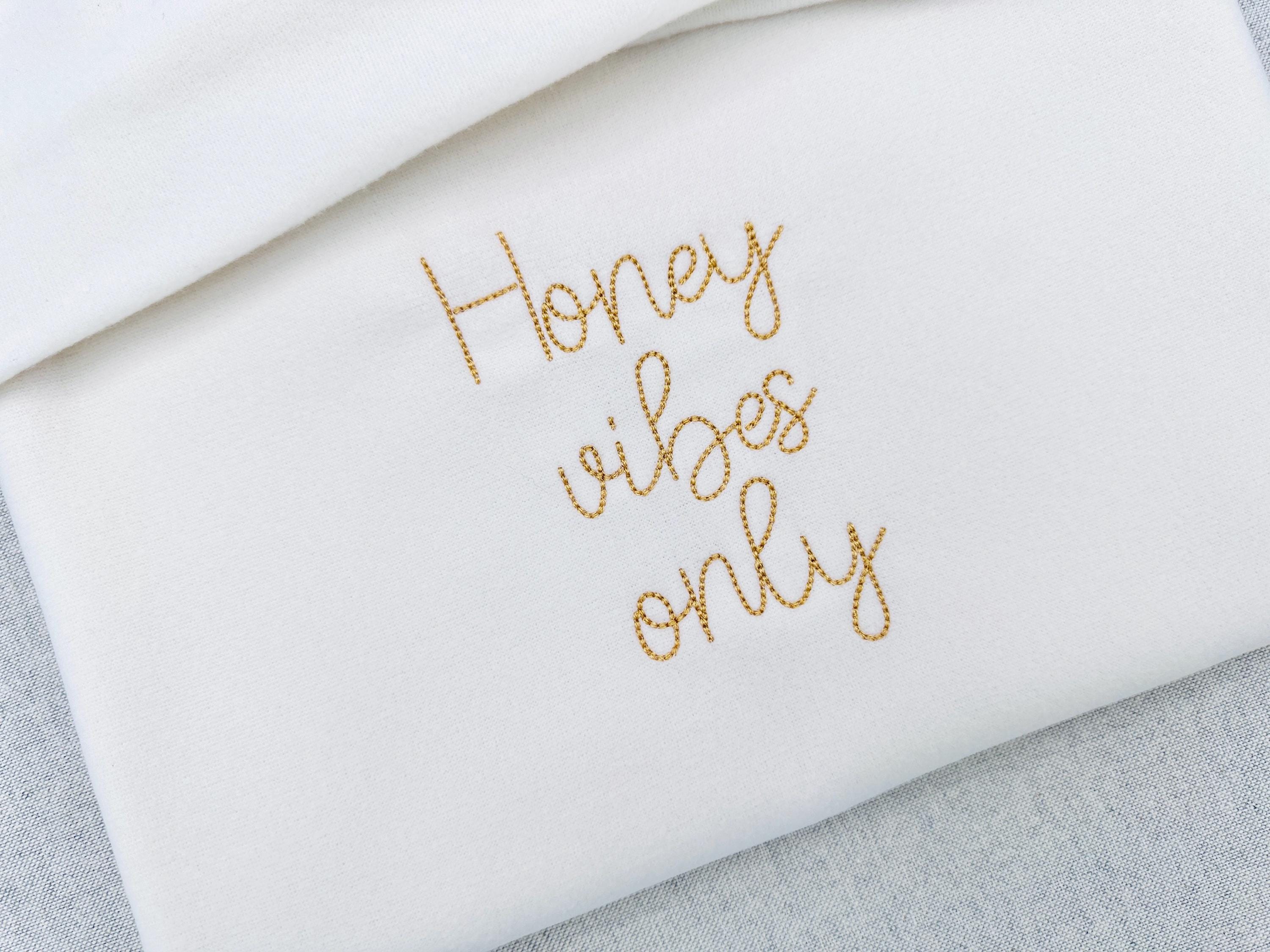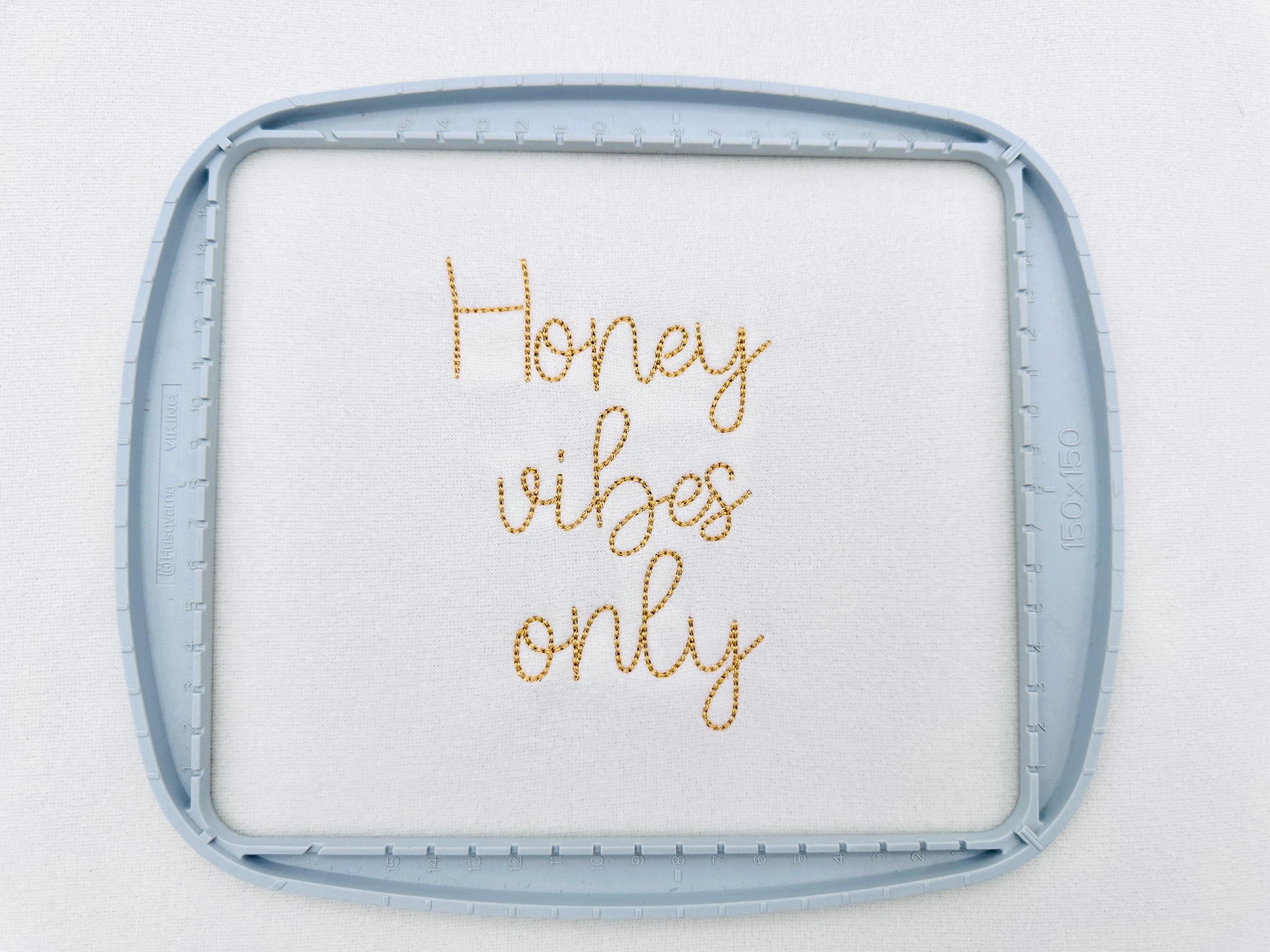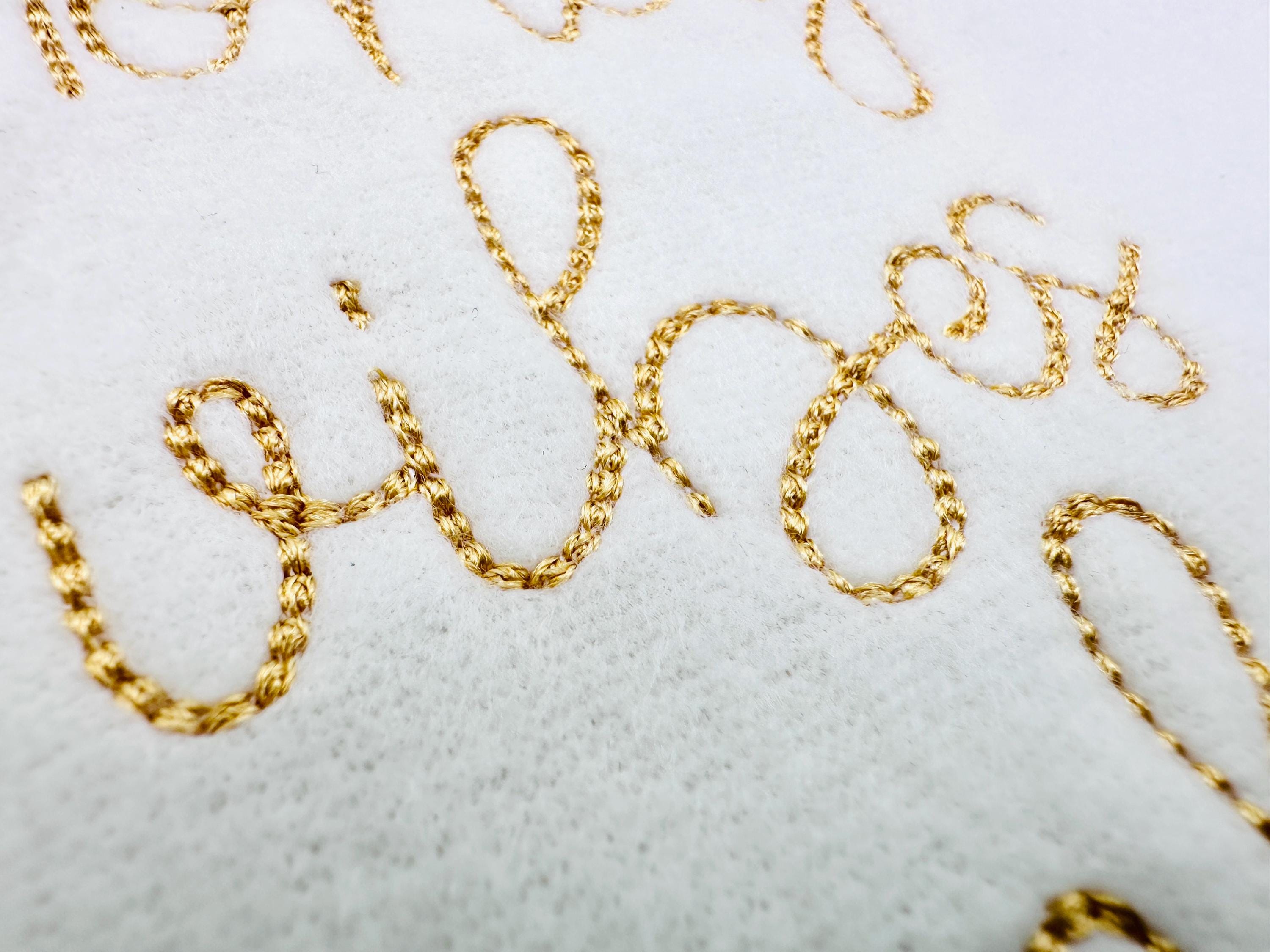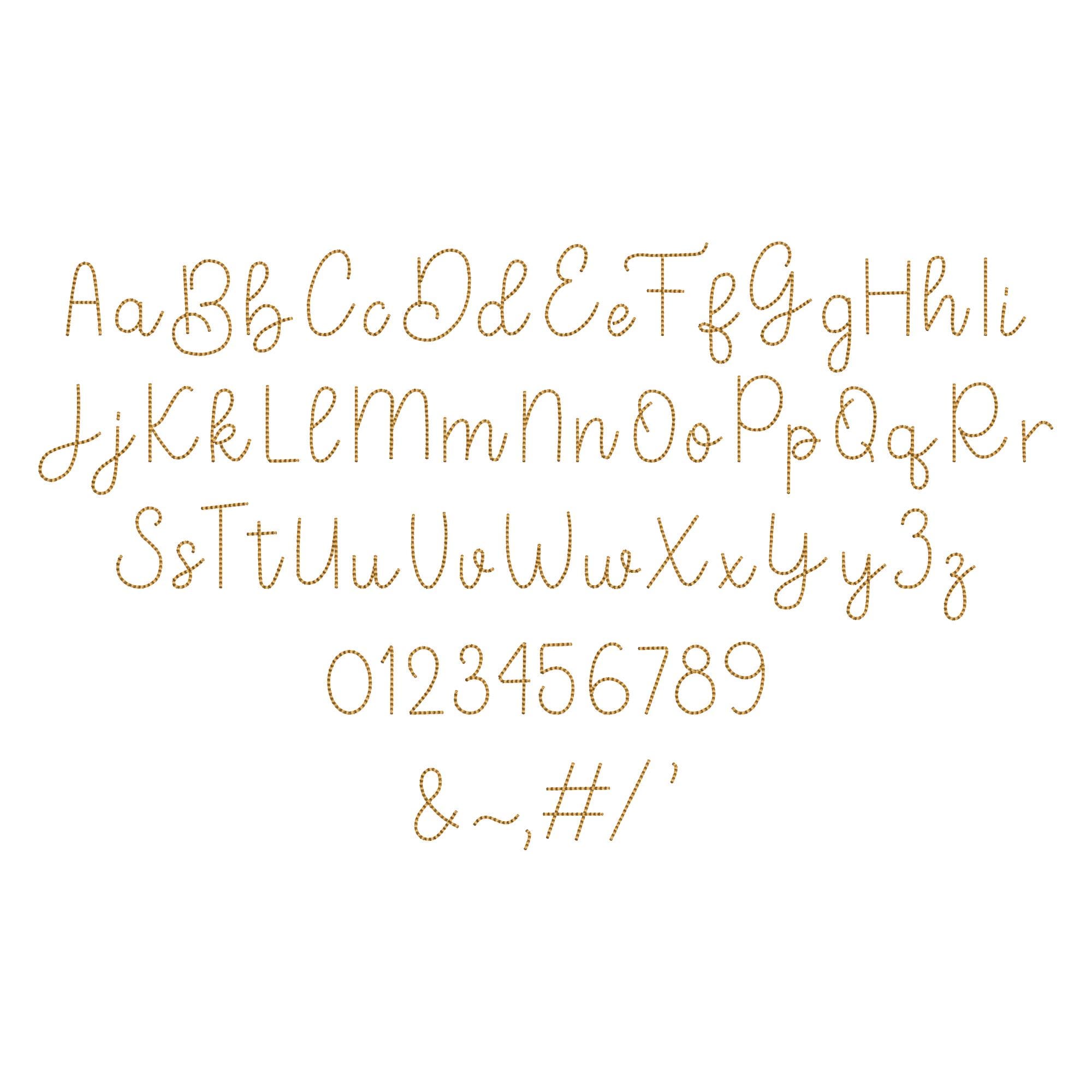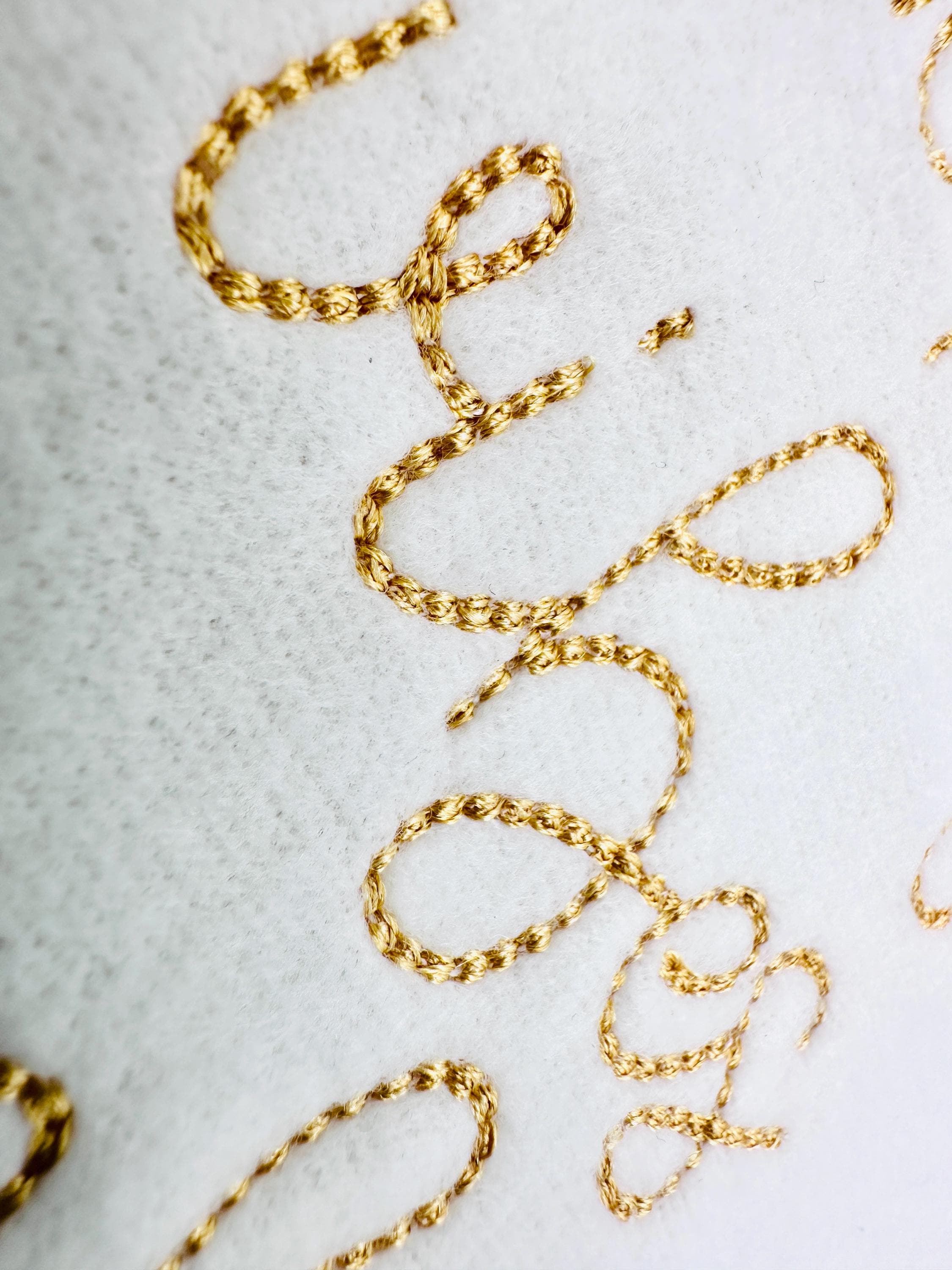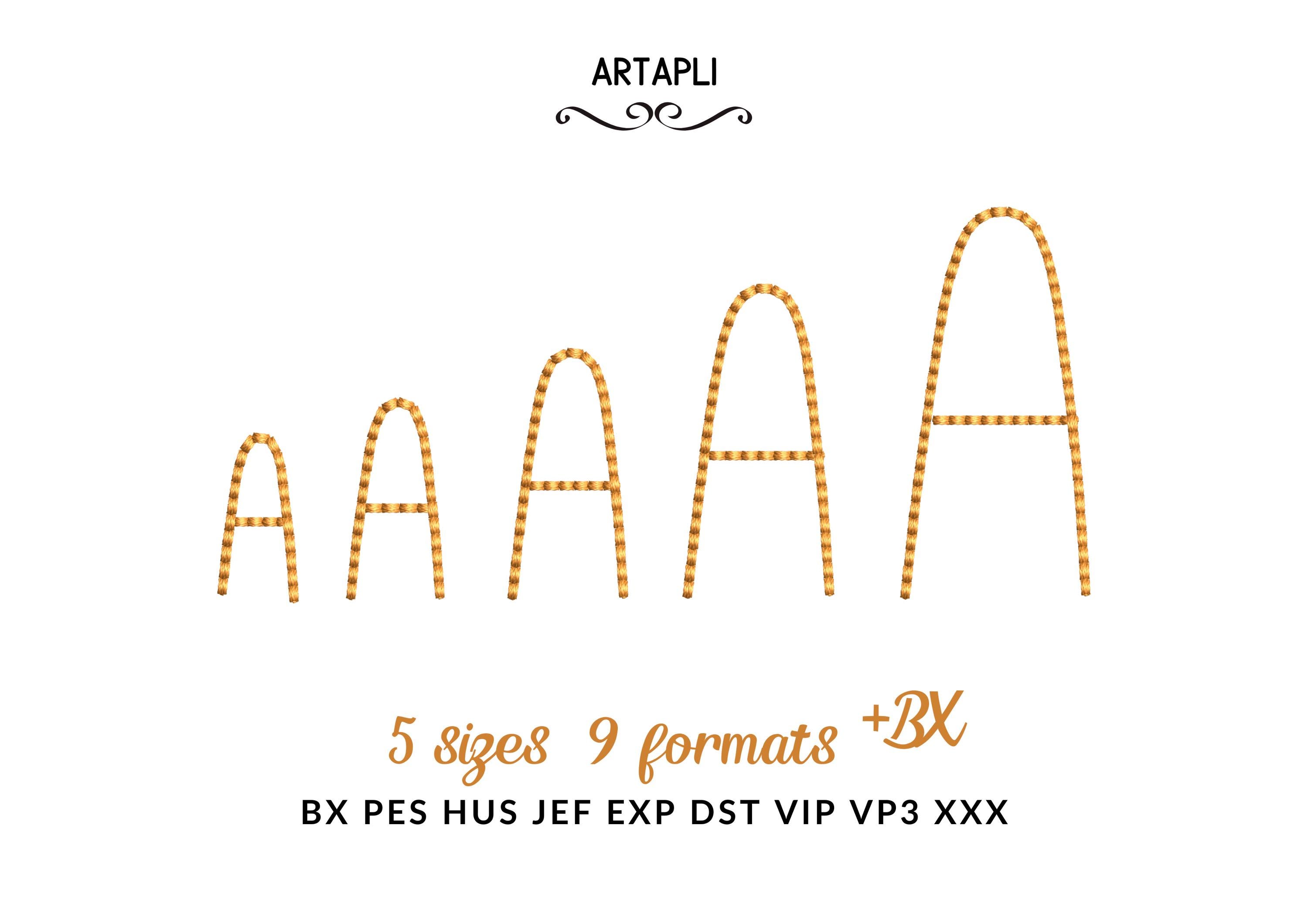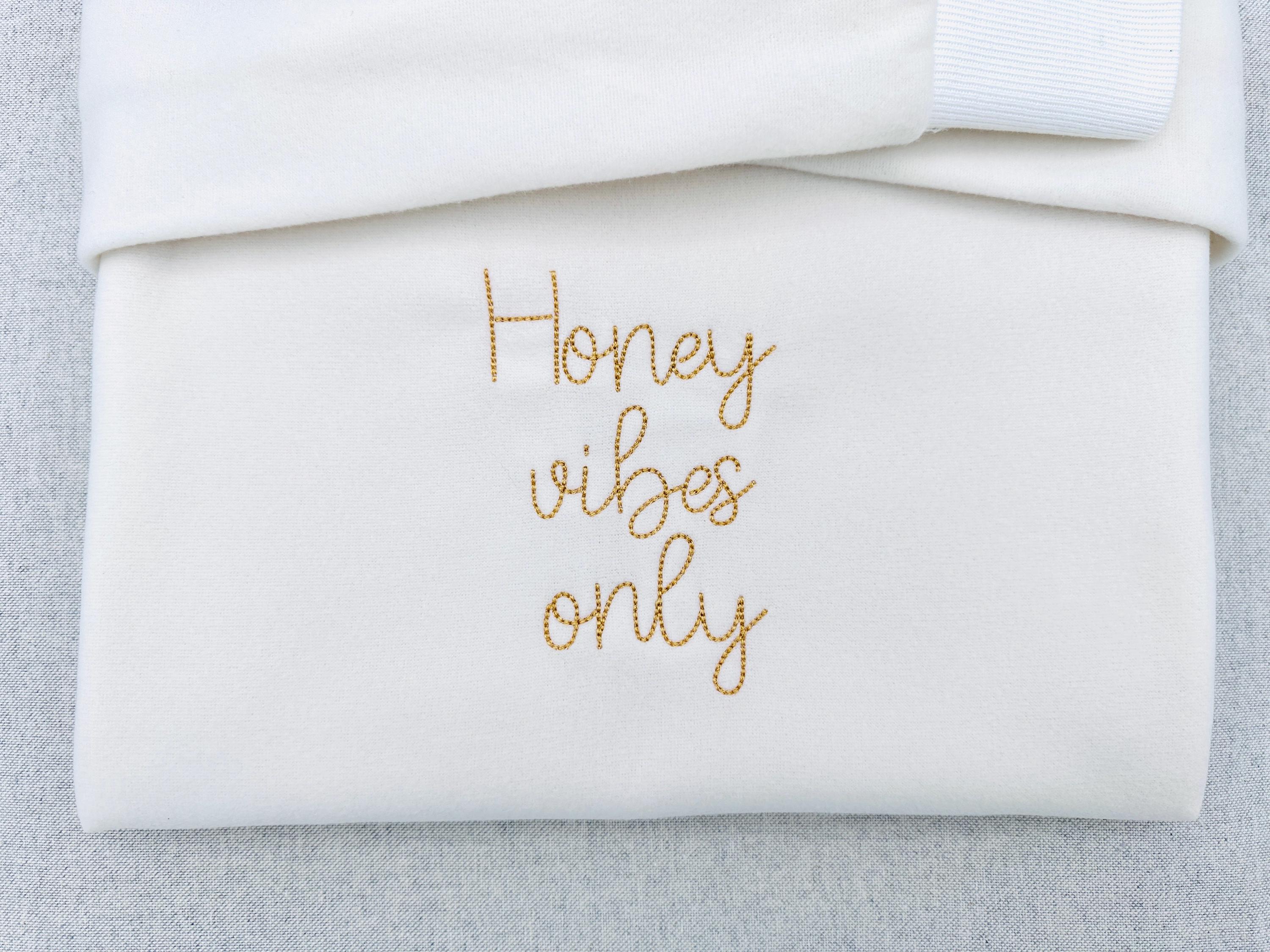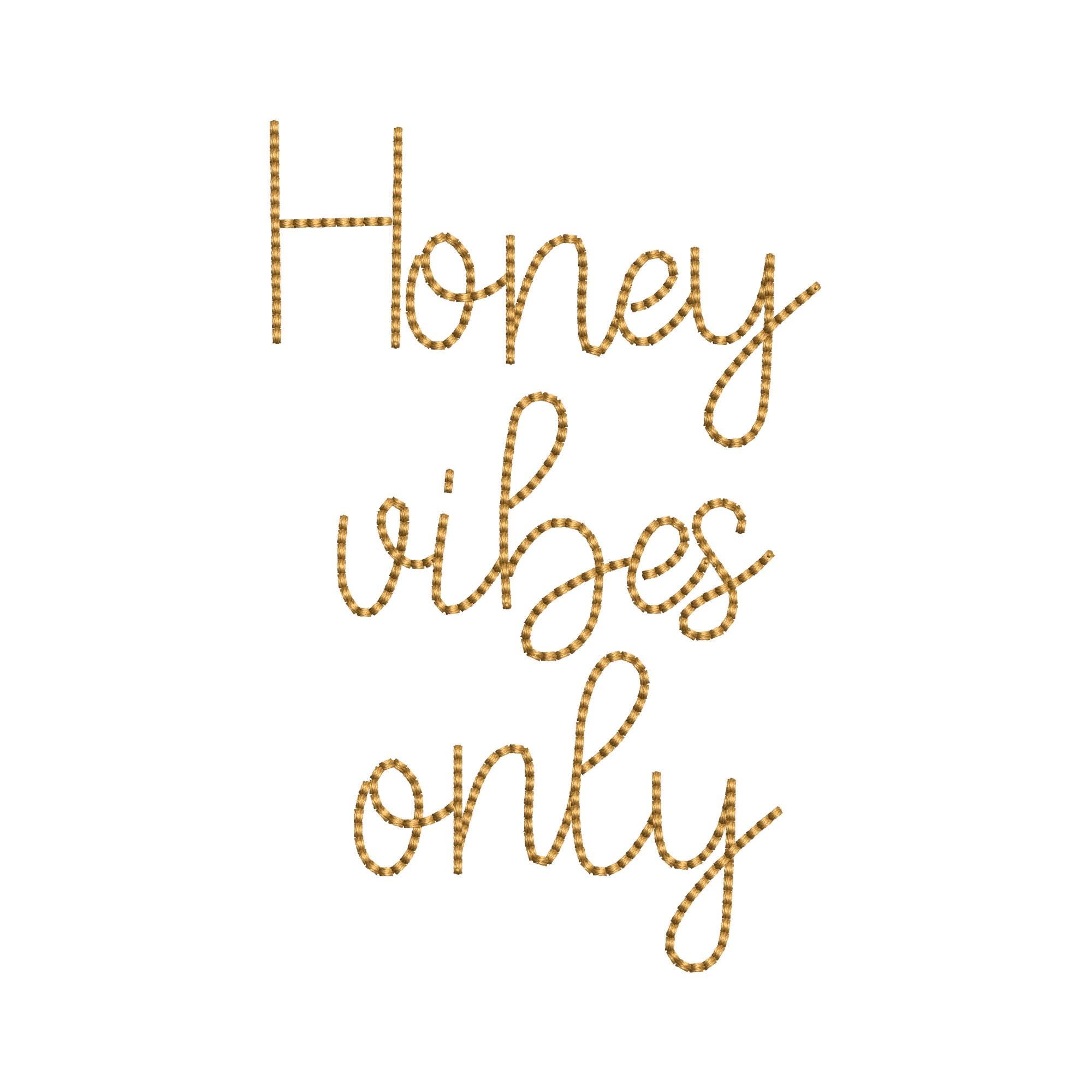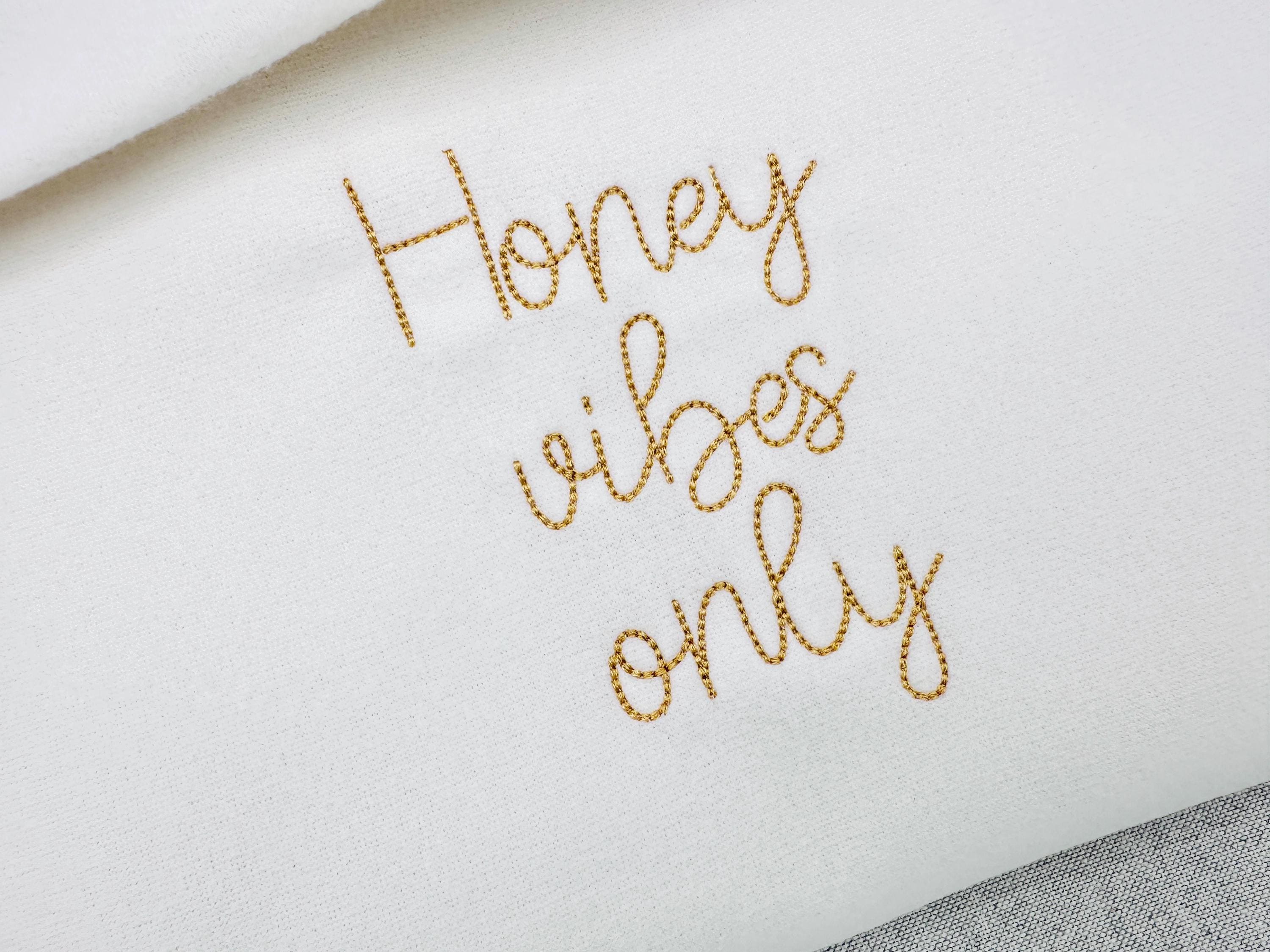
Handwritten script FONT Honey Bean Alphabet Monogram raised bean stitch kids baby machine embroidery designs sizes 0.9 up to 2 inch BX
Entire alphabet Aa-Zz uppercase and lowercase letters, numbers 0-9, and punctuation.